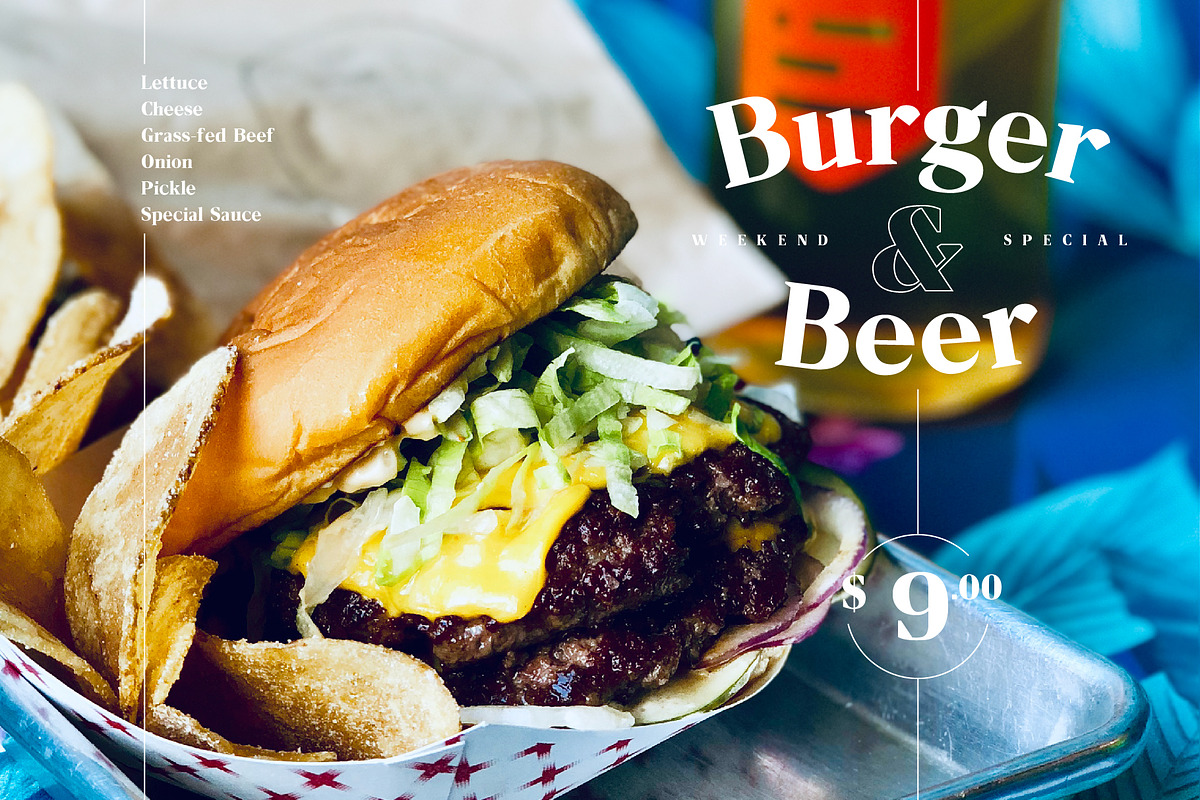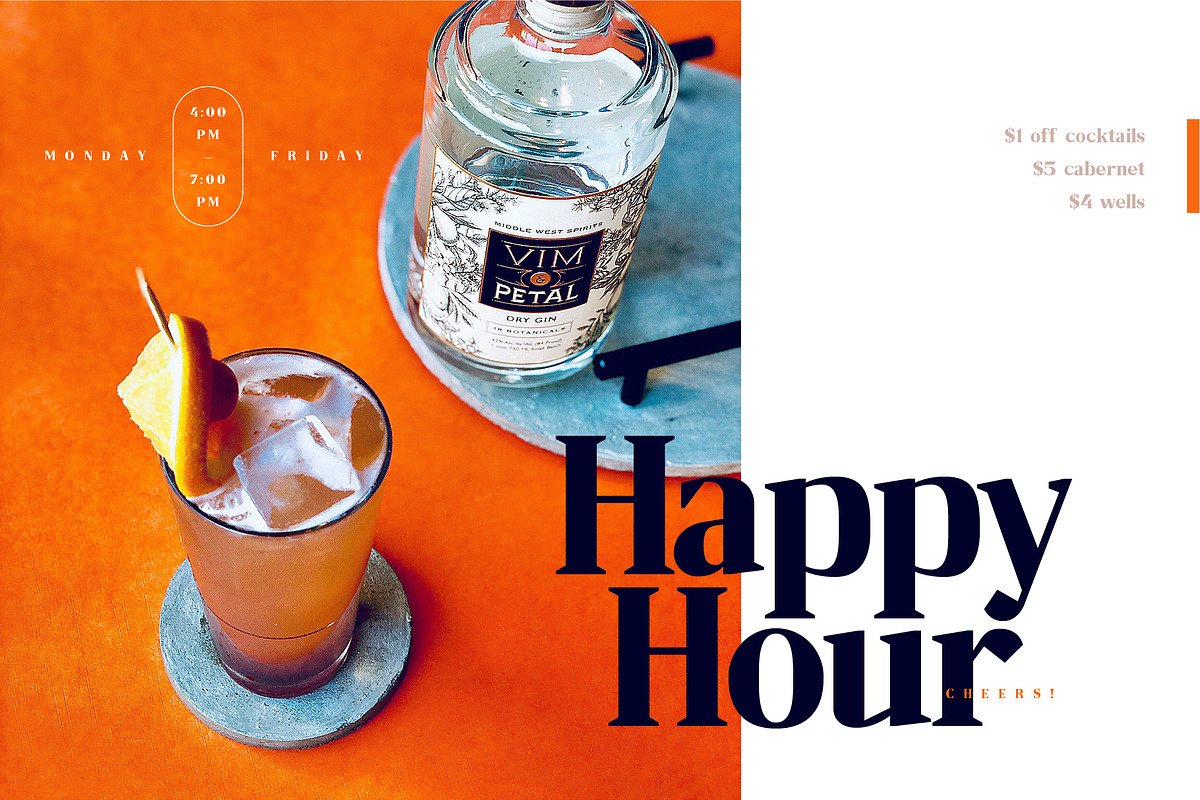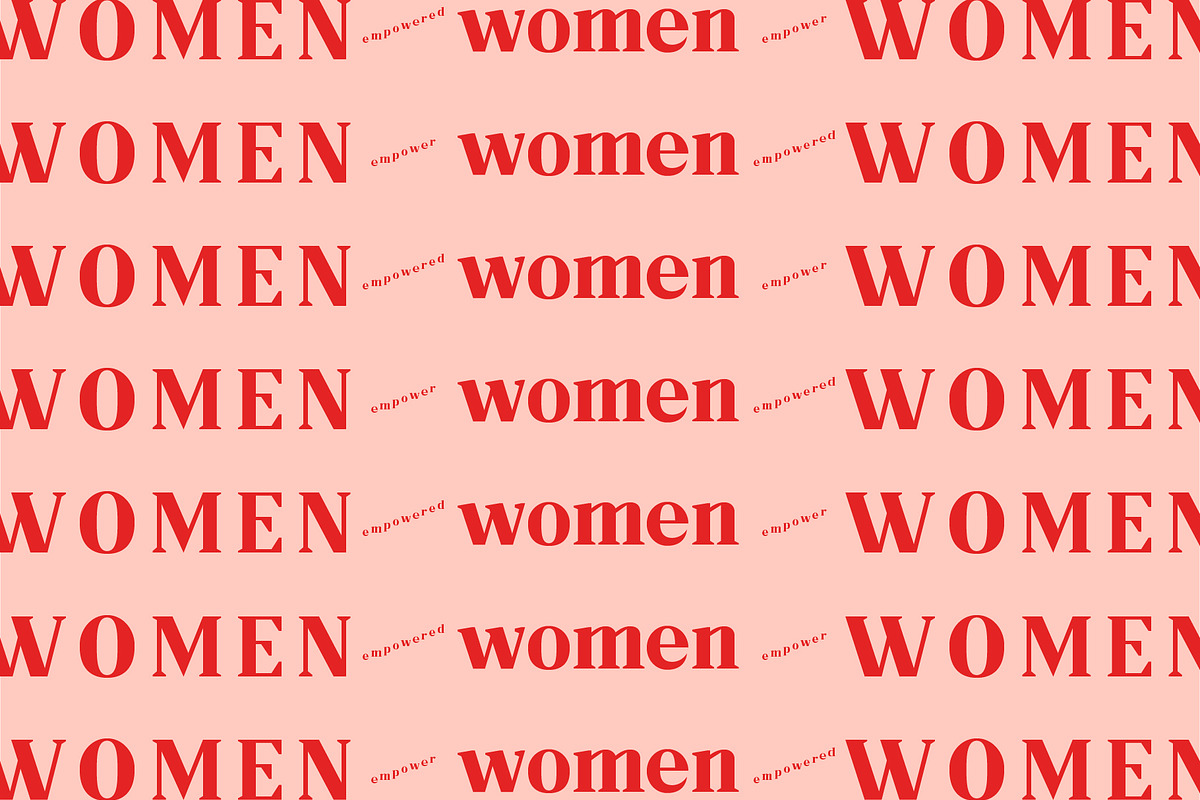
Honor Display
A Modest Modern Serif Display font with versatility. Honor Display is a one-weight display font that will bring a touch of class to your designs. Includes file formats .otf and .woff